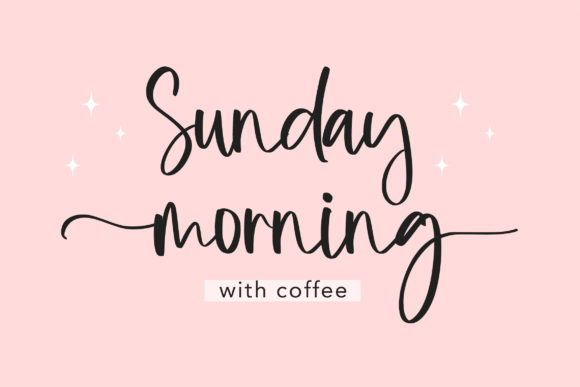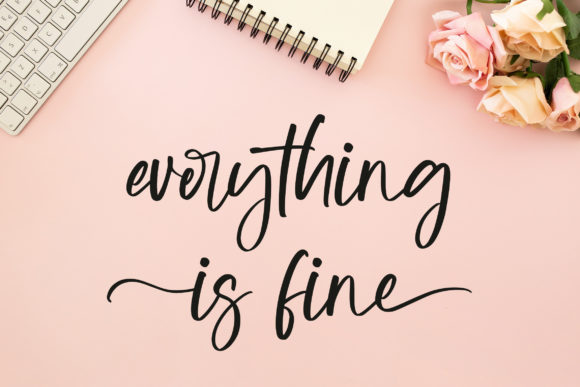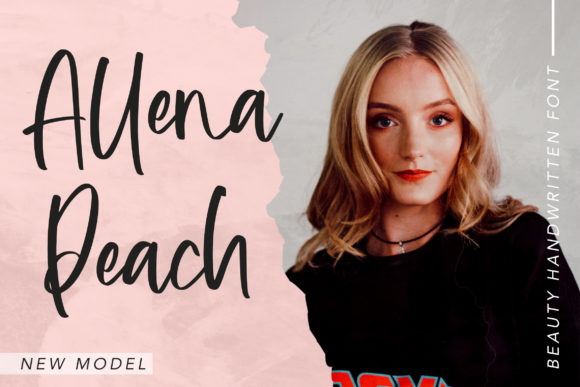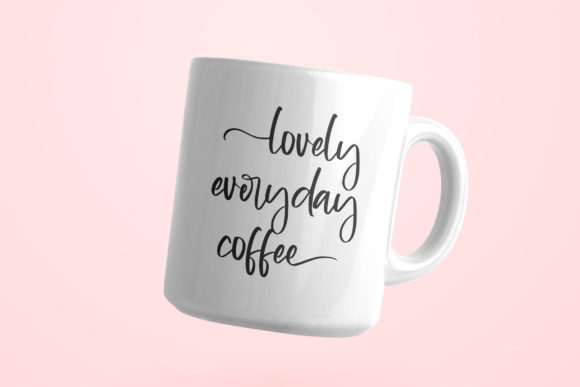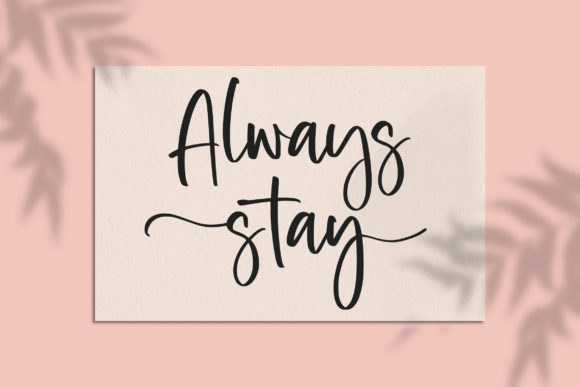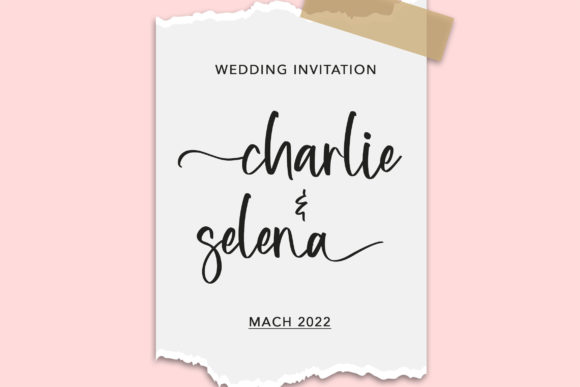
Gianella Breakfast Font: The Perfect Partner for Your Morning Creativity
There’s nothing quite like that moment of pure inspiration – the one where you’re sipping your morning coffee, staring at a blank canvas, and suddenly, a brilliant idea pops into your head. It’s as if the world has come alive, and your imagination is running wild. That’s exactly the kind of creative spark the Gianella Breakfast Font is designed to ignite.
This charming script font is more than just a pretty face – it’s a versatile tool that can add a touch of whimsy and personality to your designs. With its playful characters that seem to dance along the baseline, Gianella Breakfast Font is perfect for adding a sense of fun and energy to your projects. Whether you’re a graphic designer, illustrator, or simply someone who loves to create, this font is a valuable addition to your toolkit.
Gianella Breakfast Font Key Features
- Unique Characteristics: The Gianella Breakfast Font features a playful, handwritten style with a mix of rounded and pointed letters, perfect for creating a warm and inviting atmosphere in designs.
Gianella Breakfast Font Review
Overall, I have mixed feelings about the Gianella Breakfast Font. On one hand, it’s a beautiful and charming script font that adds a touch of whimsy to any design project. ✨ The flowing lines and elegant curves make it perfect for creating a warm and inviting atmosphere, ideal for branding, packaging, and advertising materials.
Here are some of the things that work well:
- ✨ Unique and playful design that sets it apart from other script fonts
- ✨ Highly versatile and suitable for a wide range of applications
- ✨ Supports multiple languages and character sets, making it a great choice for international projects
- ⚠️ May not be the best choice for projects that require a more formal or professional tone
- ⚠️ Can be difficult to read at small font sizes, especially for users with visual impairments
- ⚠️ May not be compatible with all font rendering engines, which can affect its appearance on different devices
Overall, I think the Gianella Breakfast Font is a solid choice for designers who want to add a touch of personality to their projects. While it may have some limitations, its unique design and versatility make it a great option for a wide range of applications.
Gianella Breakfast Font is ideal for use in food and beverage branding, marketing materials, and packaging design.
Use it to create eye-catching headlines, menus, and product labels that evoke a sense of warmth and hospitality.
Yes, the Gianella Breakfast Font is a highly customizable font. You can adjust font size, color, and style to fit your design needs. Additionally, the font’s OpenType features allow for advanced typographic control, including ligatures, swashes, and more.